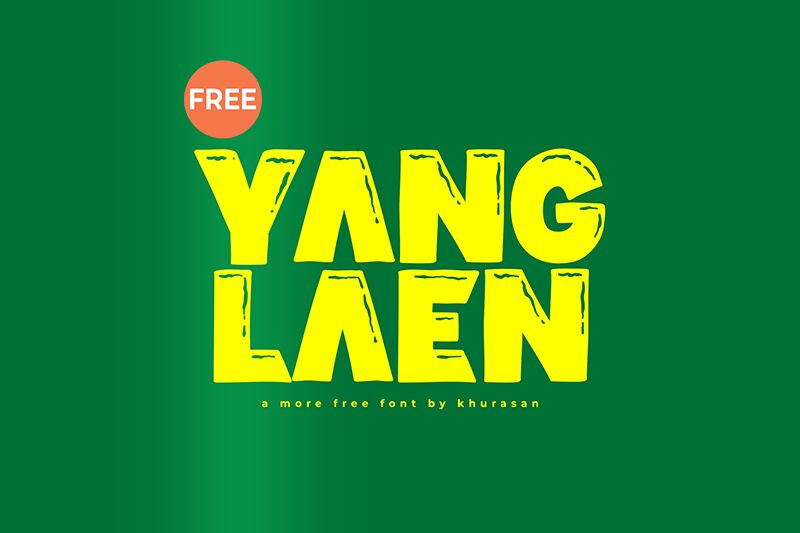
Yang Laen
Yang Laen font by Khurasan is a cartoon display typeface that features a bold appearance and rugged design. The characters presented are irregular in shape, accompanied by small speckles, scratches, and dents that all serve to emphasize the vintage character. An additional noticeable detail is the thick dark shadow effect which increases the effect of depth and also facilitates readability.
You automatically get access to great typography design choices with this free bold font. Labels, apparel branding, packaging design projects, posters, and even business cards are some of the obvious uses. Other interesting applications include event invitations, drink labels, money labels etc.